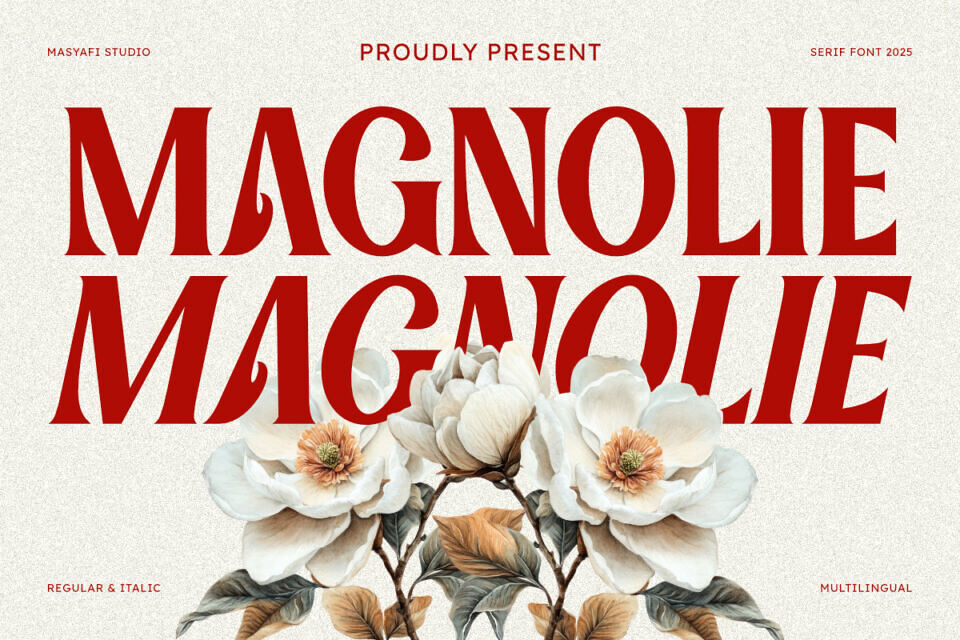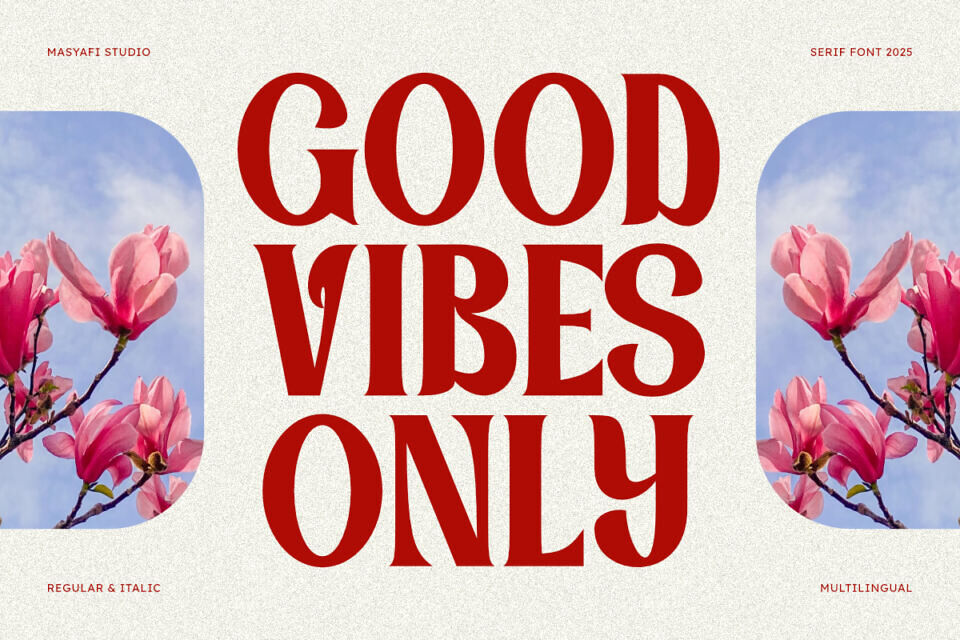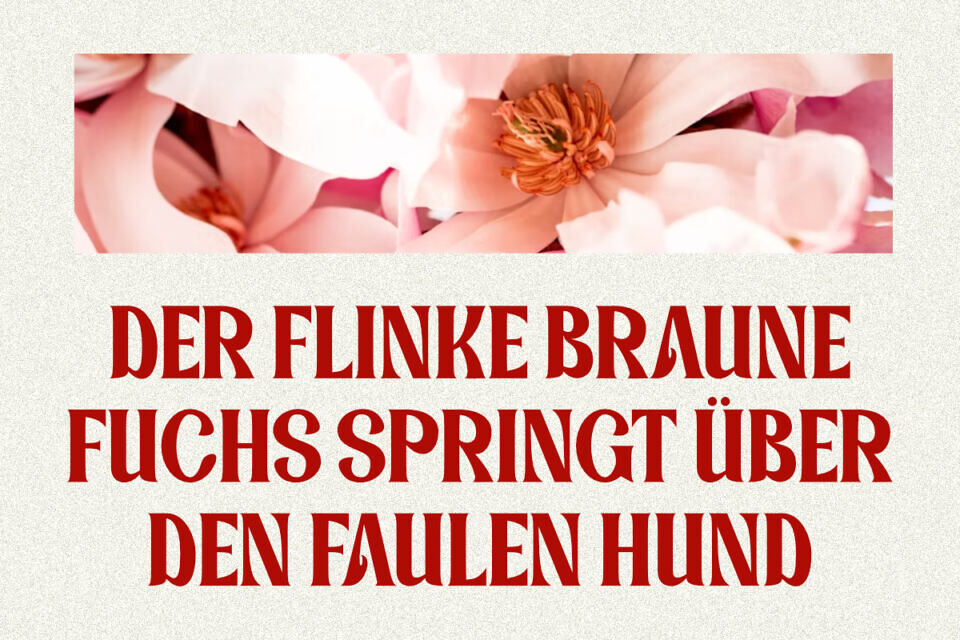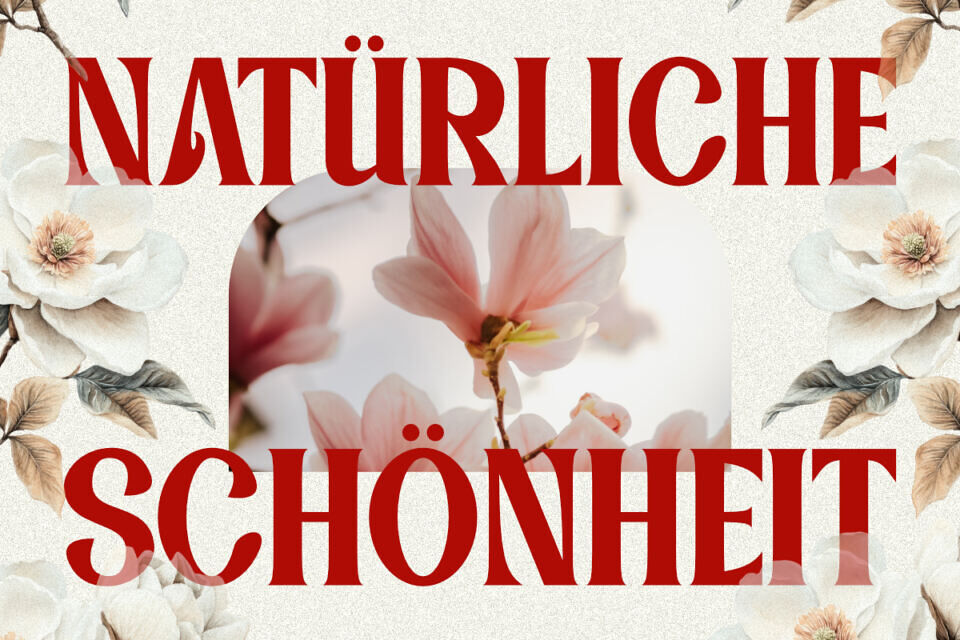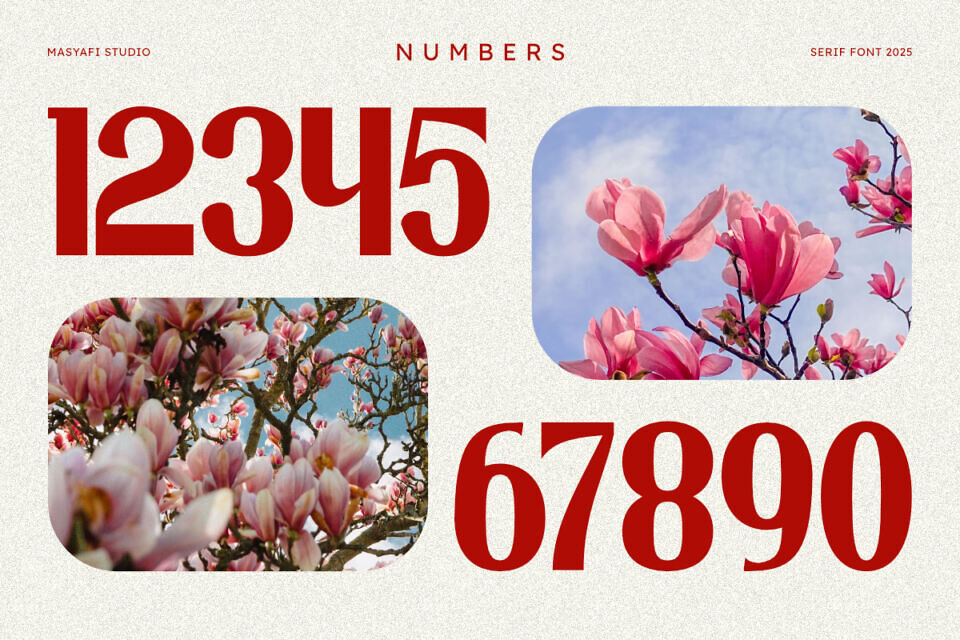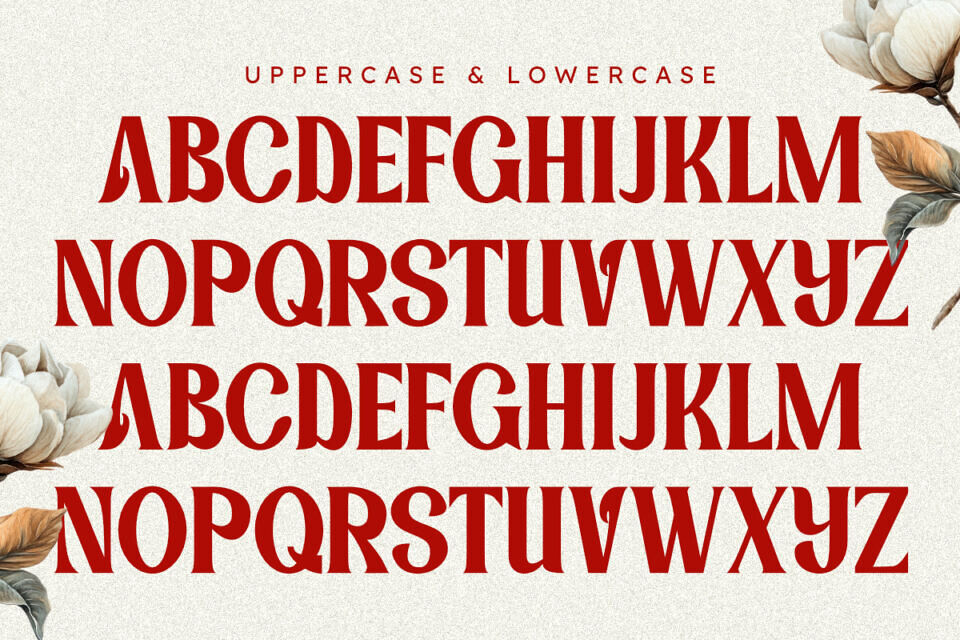
Magnolie is a sophisticated serif font that embodies timeless elegance and a touch of modern flair. This typeface features gracefully crafted serifs and balanced letterforms, exuding a sense of luxury and refinement. Available in both Regular and Italic styles (free version), Magnolie offers versatility for various design needs.
Its classic yet contemporary appeal makes it ideal for high-end branding, luxurious packaging, editorial design, wedding invitations, elegant headlines, and any project that demands a distinguished and beautiful typographic presence. Magnolie also supports multilingual characters, broadening its global usability.